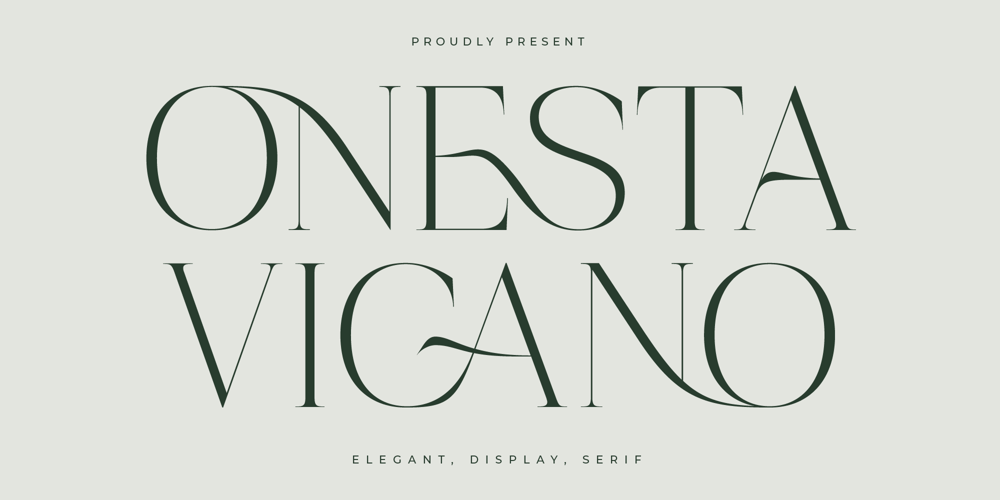
Onesta Vigano
Onesta Vigano font
Onesta Vigano Font Family was designed by Heru Utama Putra and published by Letterena Studios. Onesta Vigano contains 2 styles and family package options. Onesta Vigano, a stylish serif font, exudes timeless elegance and sophistication. With gracefully crafted letterforms and subtle serifs, it strikes a perfect balance between classic and contemporary. Elevate your designs with the distinguished charm of Onesta Vigano, adding a touch of refinement to any project.